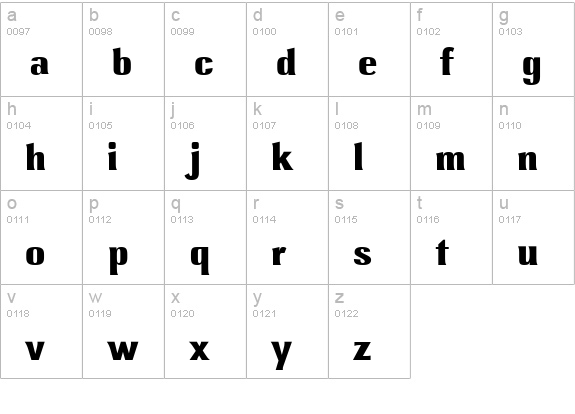
Lennox ITC Bold Font Details
Lennox ITC Bold is a strong, high-contrast variant in the Lennox typeface family \xE2\x80\x94 well suited to headlines, attention-grabbing titles, and strong calls-to-action.
Lennox ITC Bold is a striking and powerful font that commands attention with its bold and assertive presence. This font is perfect for designs that require a touch of distinction and strength. Its bold weight adds a sense of confidence and authority to any project, making it ideal for headlines, titles, and logos. Featuring clean lines and a modern aesthetic, Lennox ITC Bold is a versatile font that can be used across various design styles, from contemporary to minimalistic. Its strong and bold letterforms exude a sense of professionalism and sophistication, making it an excellent choice for corporate branding, advertisements, and editorial layouts. One of the best things about Lennox ITC Bold is that it is freely available to download at FontsMarket.com. This means that you can enjoy the benefits of this exceptional font without any cost. Whether you are a professional designer or a hobbyist looking to enhance your projects, Lennox ITC Bold offers a high-quality typeface that will elevate your designs to the next level. With its wide range of characters and extensive language support, Lennox ITC Bold ensures that you can express your message effectively and accurately, no matter the language or context. Its legibility and clarity make it suitable for both print and digital mediums, guaranteeing that your message will be effortlessly communicated to your audience. Overall, Lennox ITC Bold is a remarkable font that combines strength, versatility, and elegance. Its bold and impactful design, coupled with its free availability at FontsMarket.com, makes it an excellent choice for any design project. Whether you need a font that demands attention or simply want to add a touch of sophistication to your designs, Lennox ITC Bold is the perfect choice. Download it today and unlock the potential to create stunning and professional designs.